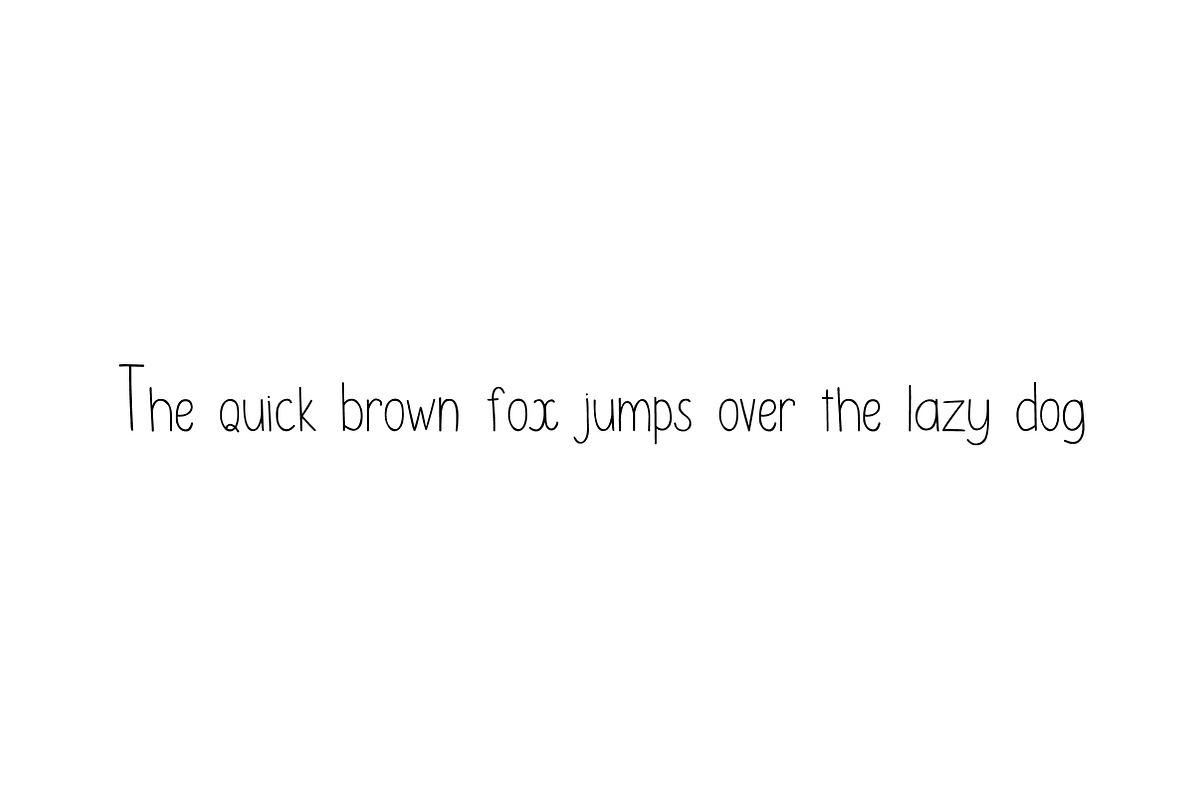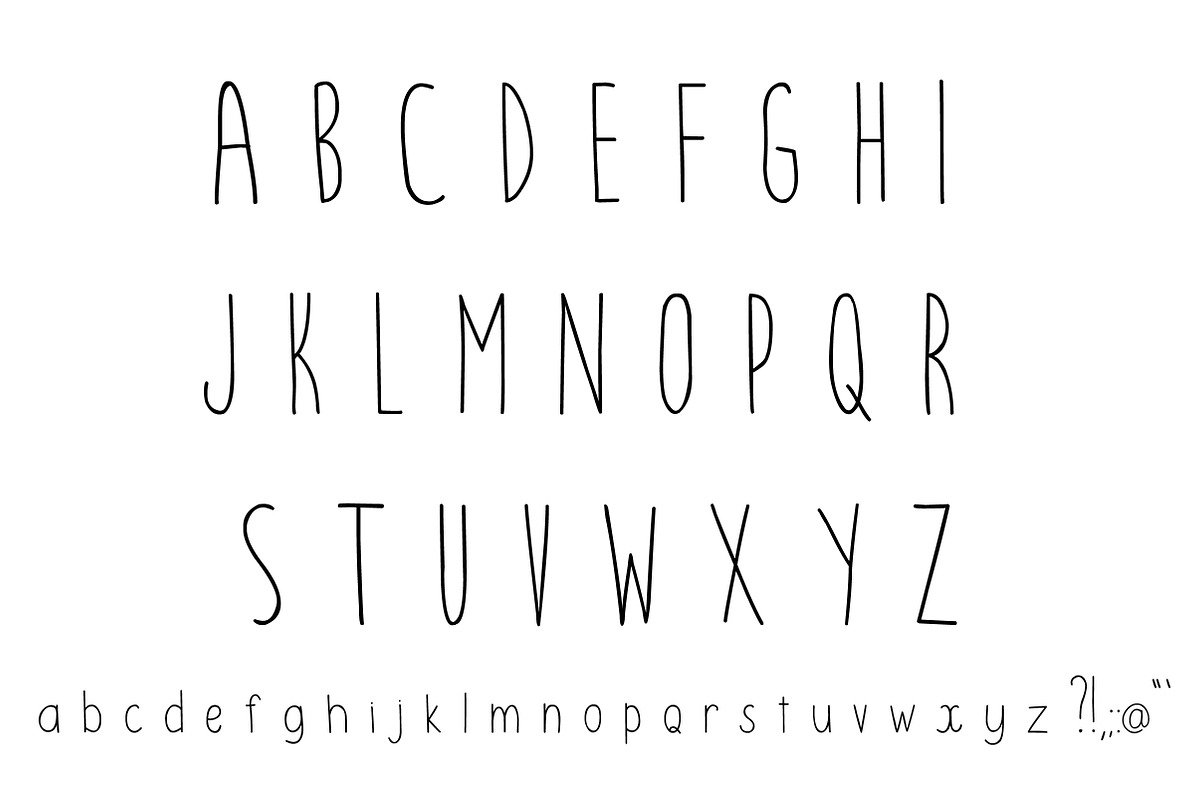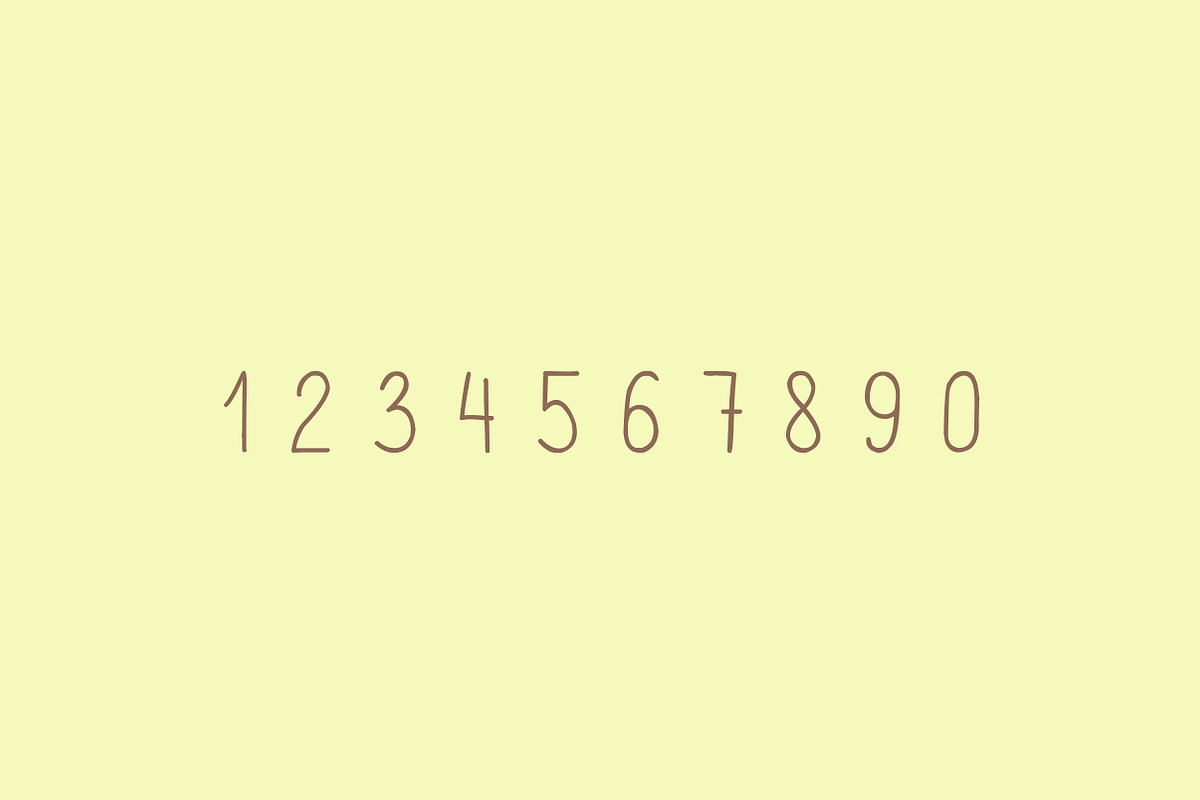
Bebekvi TTF hand written typeface
Bebekvi TTF hand written typeface by KVIO is a font selected for branding, posters, packaging, typography.
- Bebekvi is cute hand written TTF typeface by Veronika Kapralova Font includes capital letters, lowercase letters, numbers and punctuation.
- Bebekvi Regular
Bebekvi TTF hand written typeface by KVIO fits naturally into Branding, posters, packaging, typography.